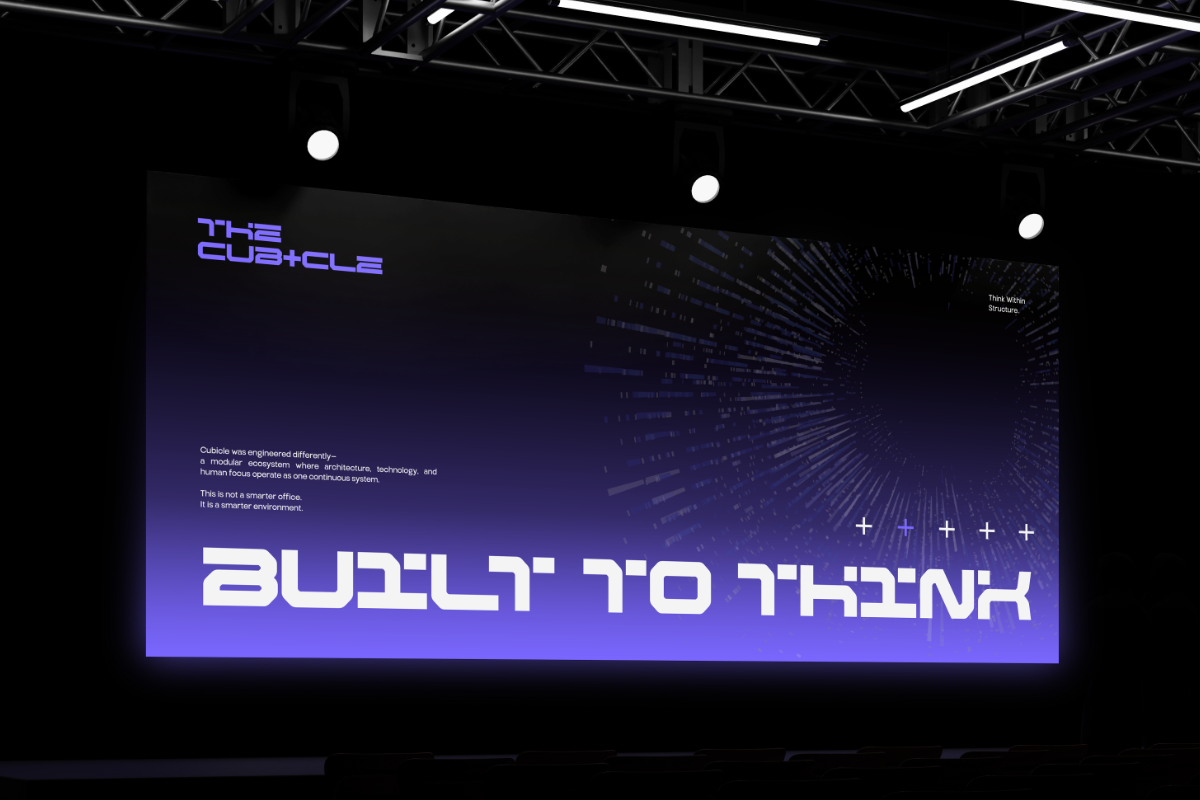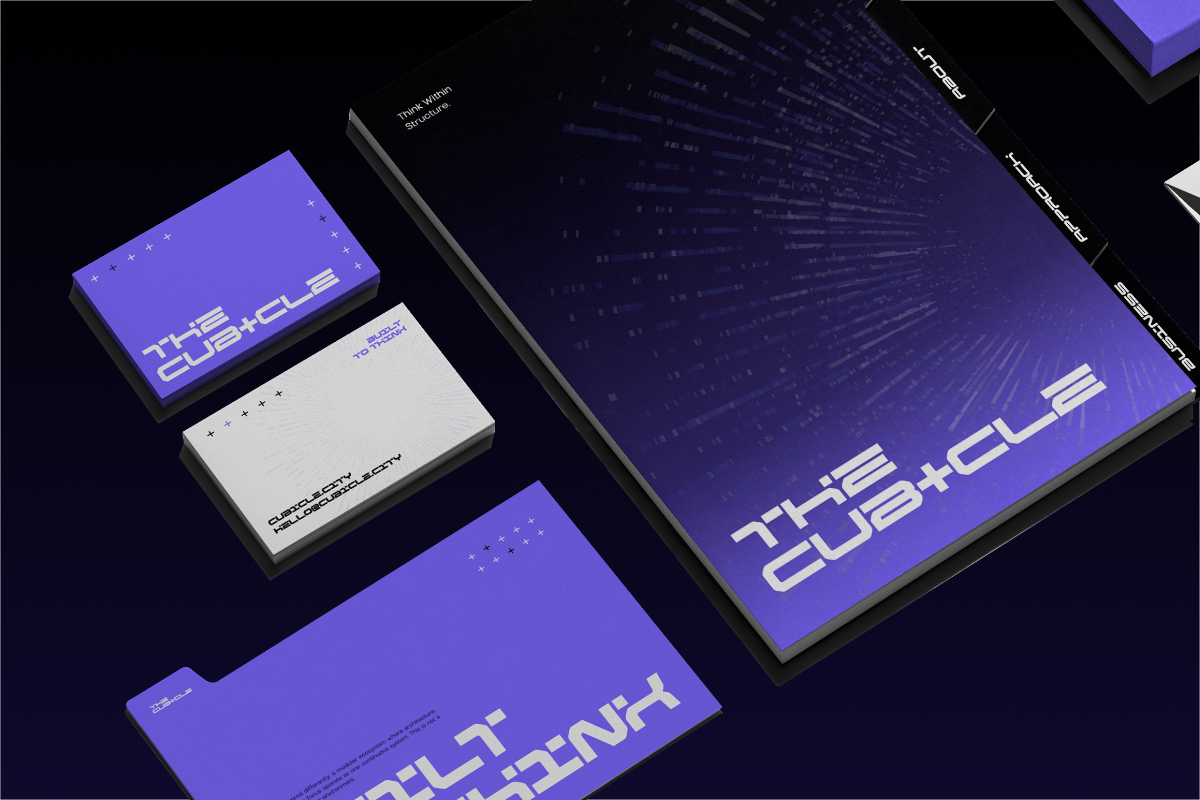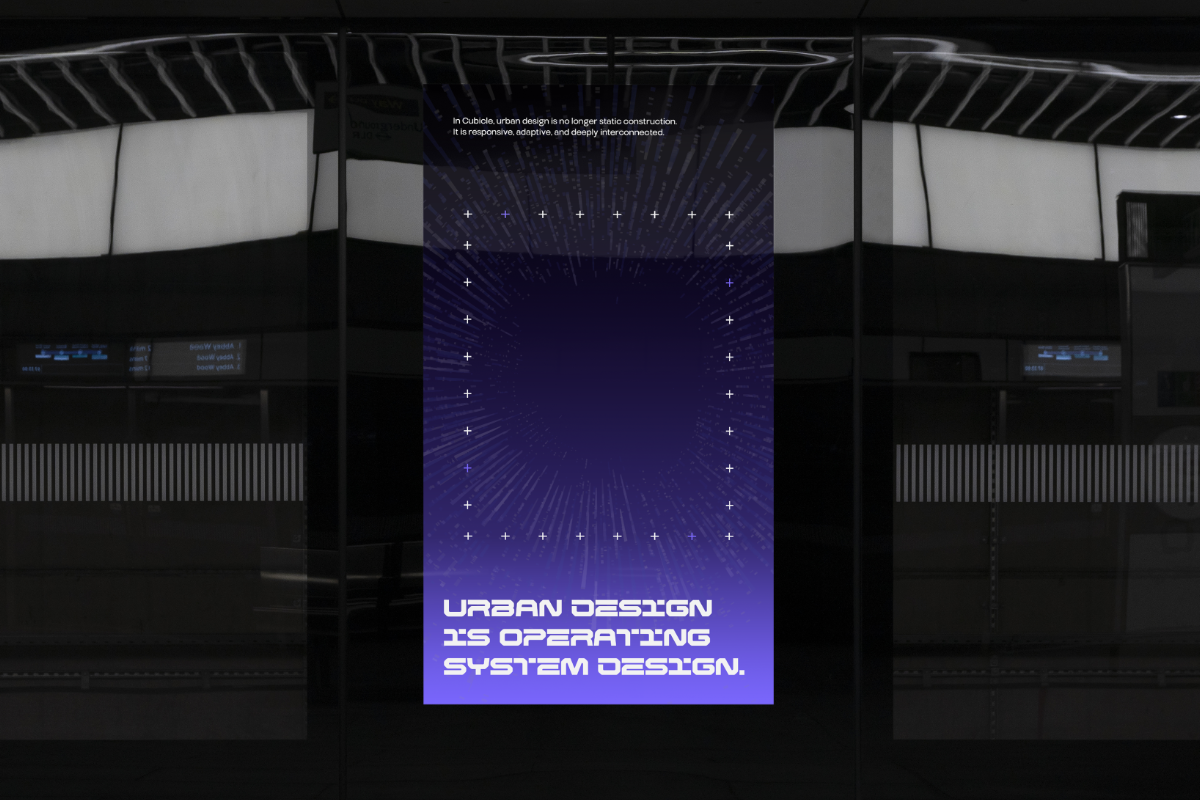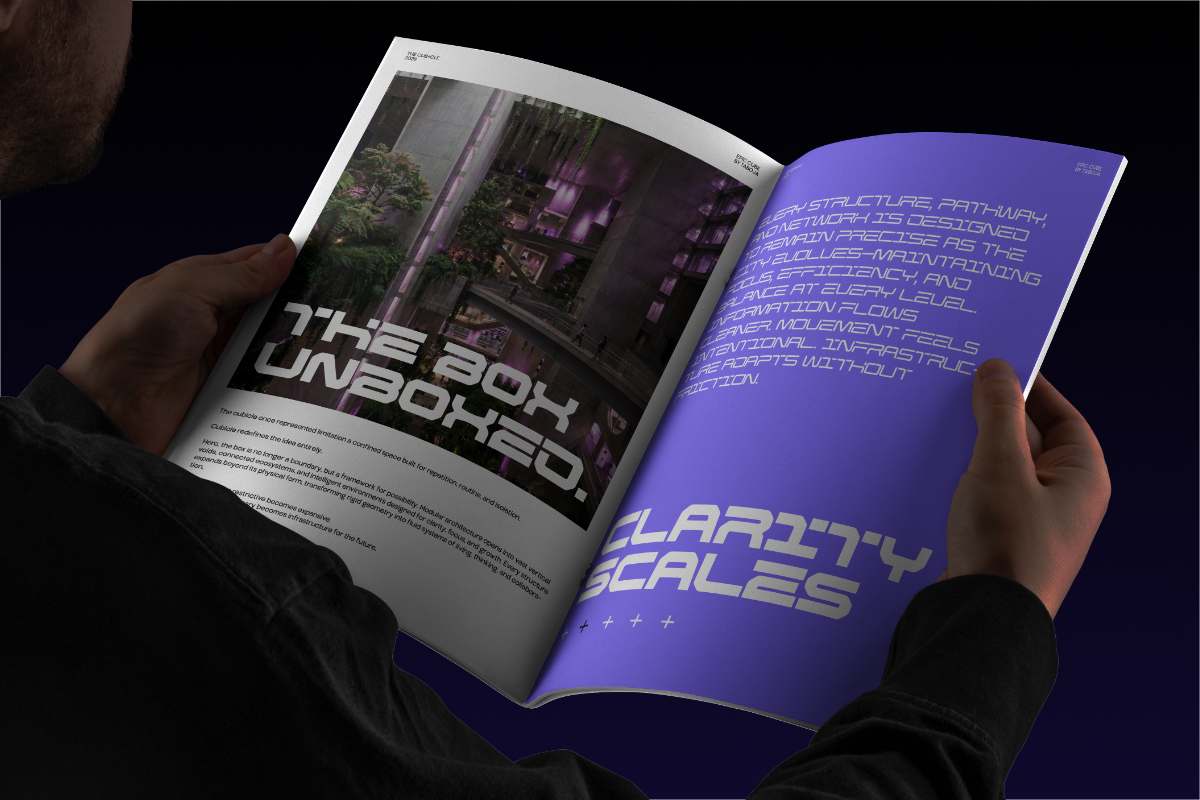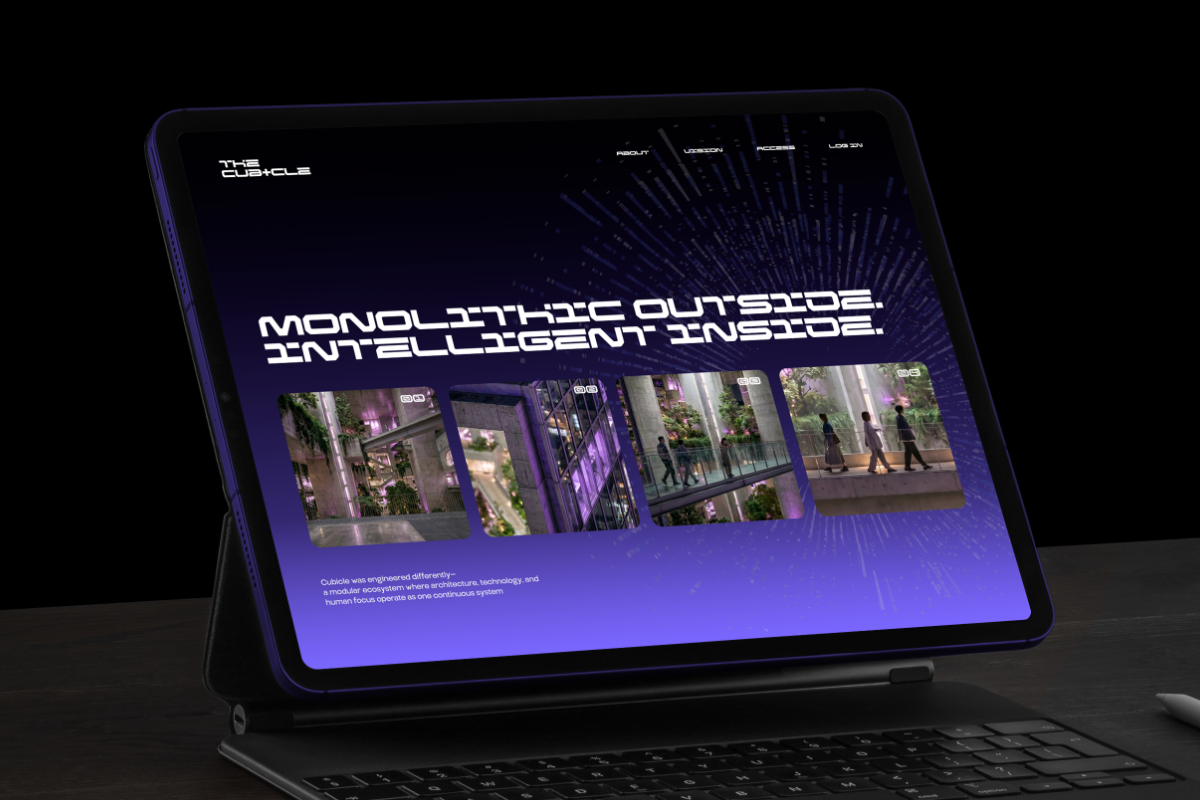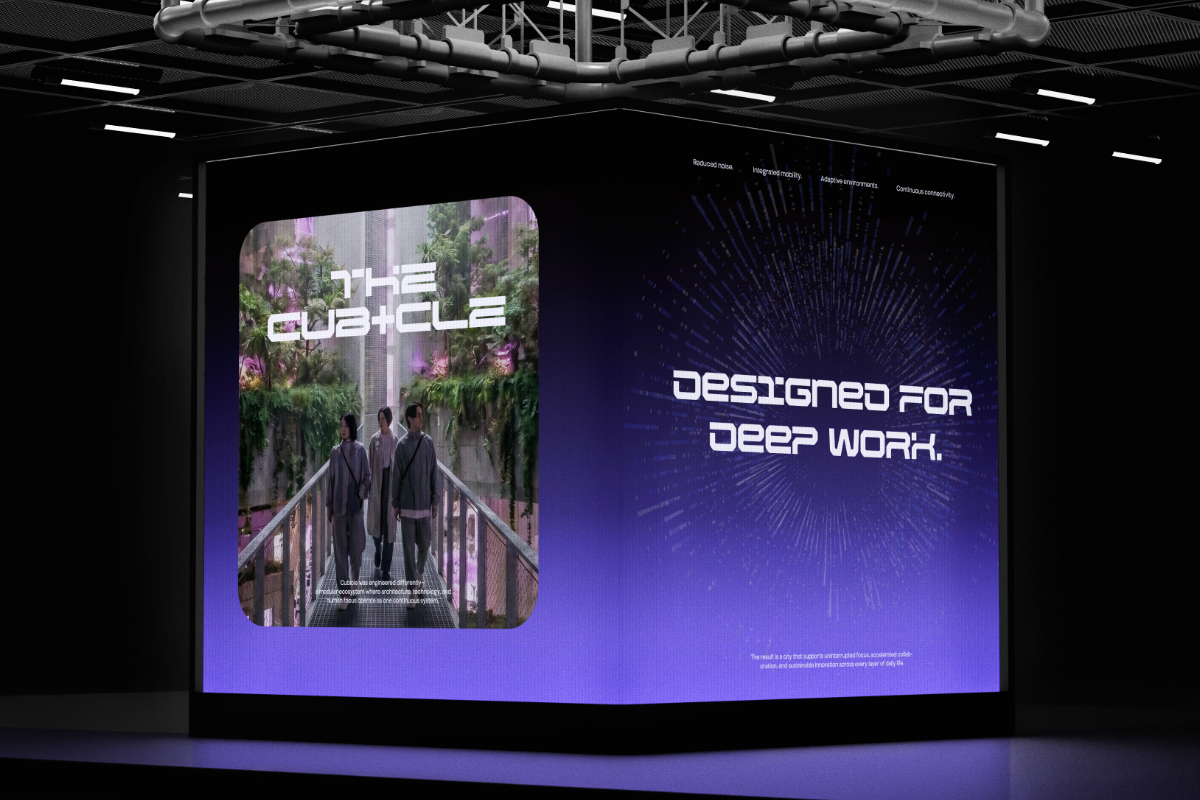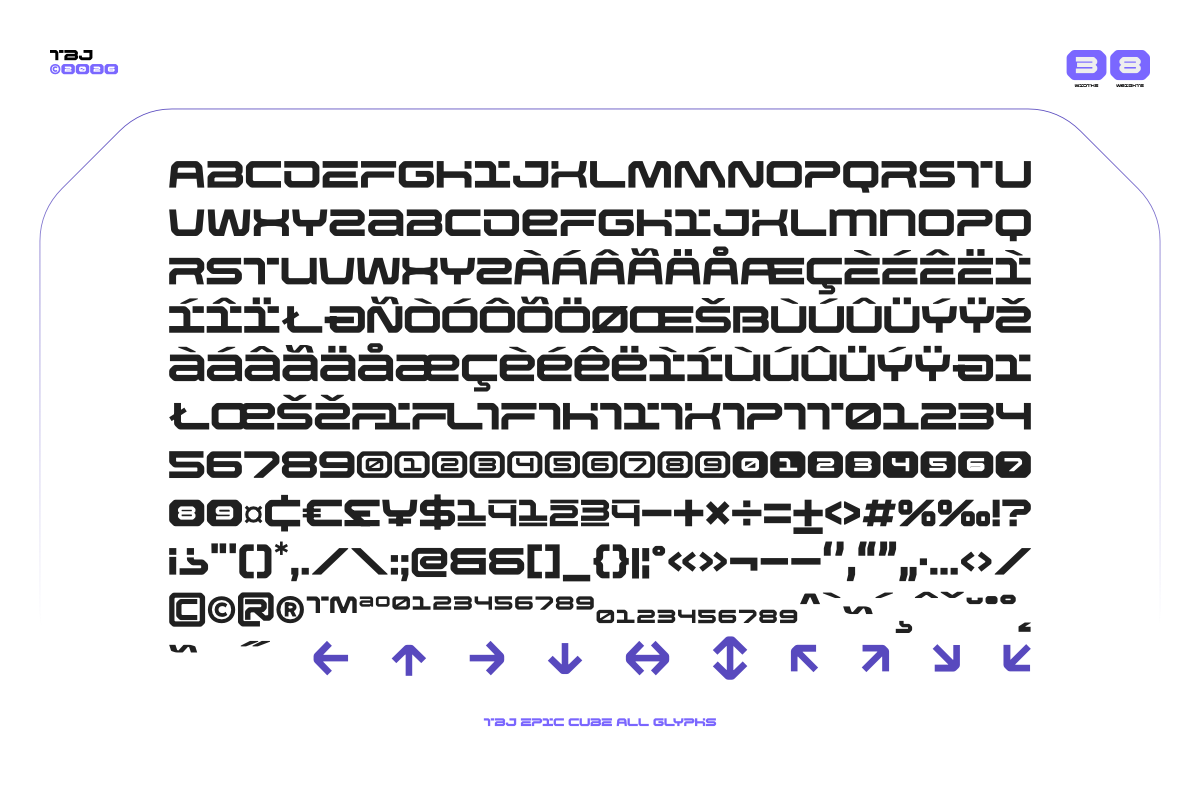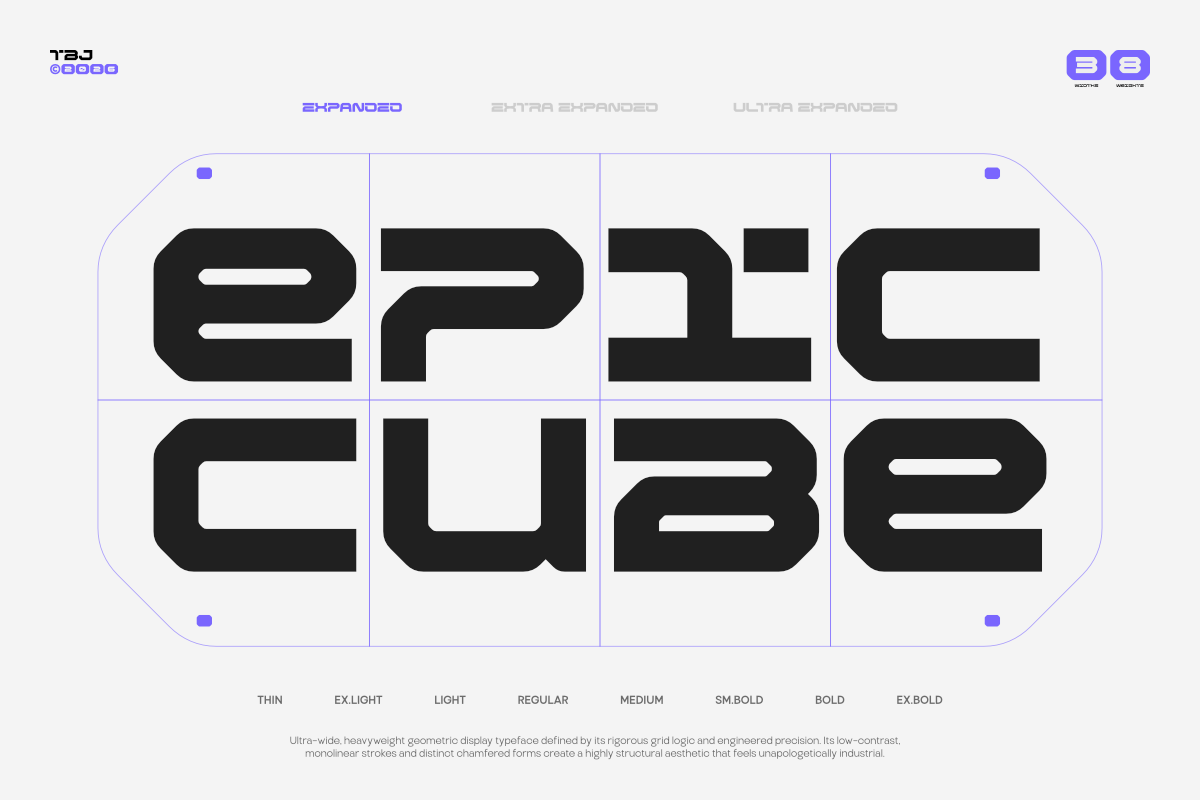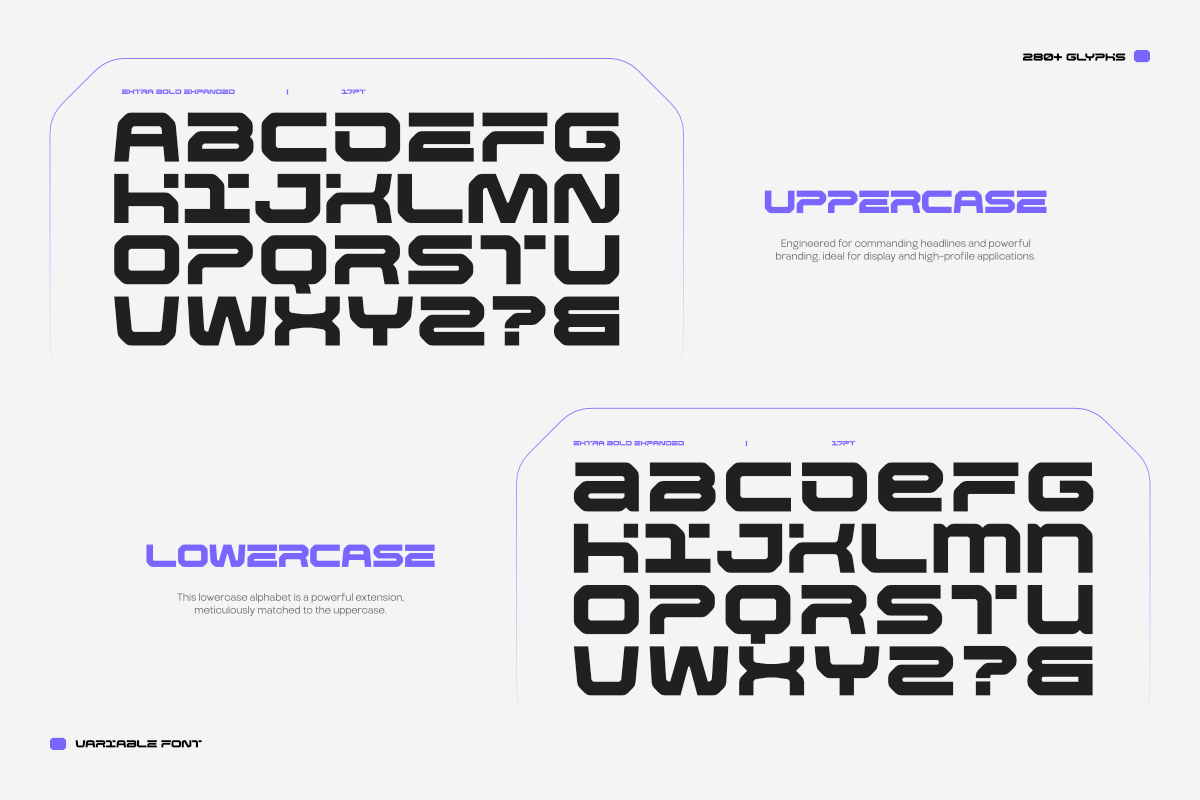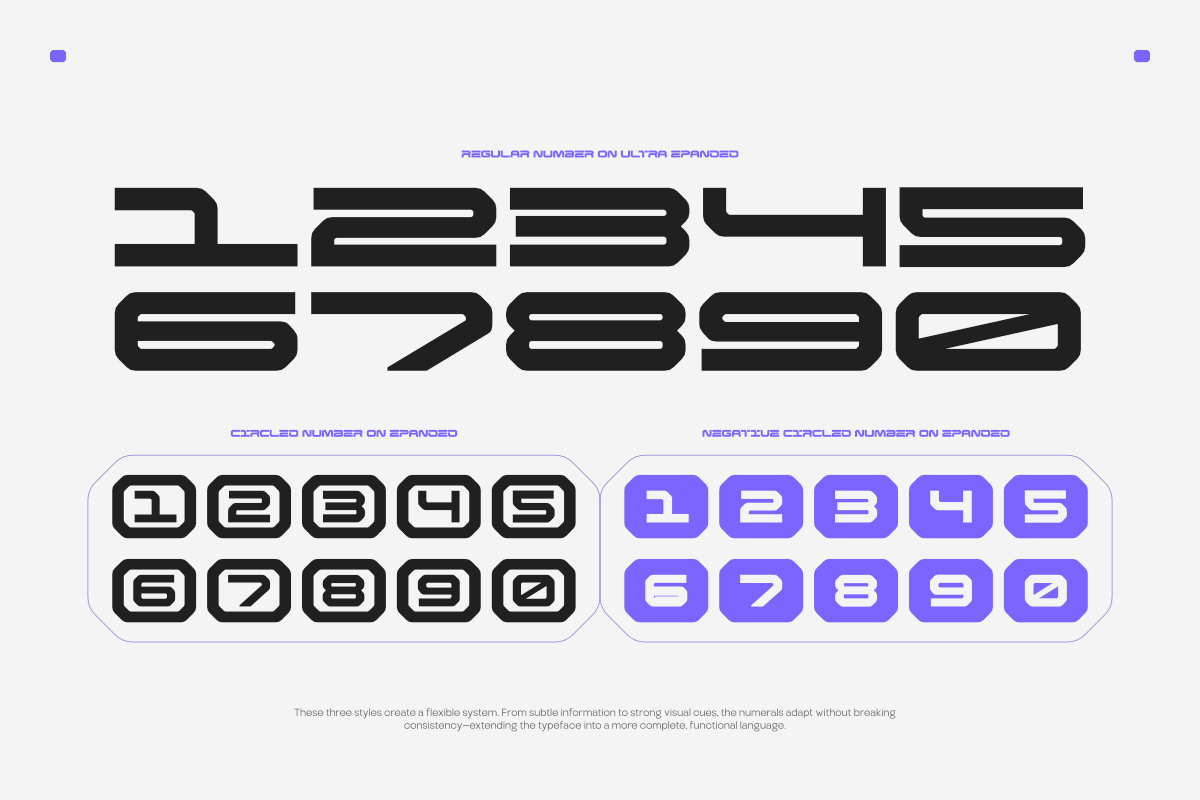
TBJ Epic Cube Display Sans Expanded
Taboja Studio
TBJ Epic Cube Display Sans Expanded
Some headlines don't ask for attention — they demand space and refuse to shrink. TBJ Epic Cube Sans Expanded by Taboja Studio is a wide-format display sans built on hard-edged, cube-derived geometry: squared terminals, flat cuts, and zero typographic compromise. Rooted in futuristic grotesque tradition, it replaces organic softness with structural rigidity — every letterform read as architecture, not ornament.